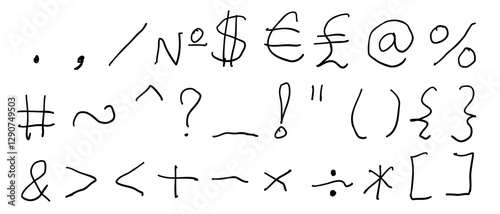
Uneven black special mathematical and other symbols and signs font. Vector illustration in hand drawn style isolated on white background. For learning, card, logo, sales, decorating, typography.